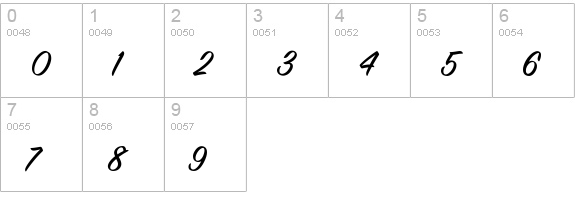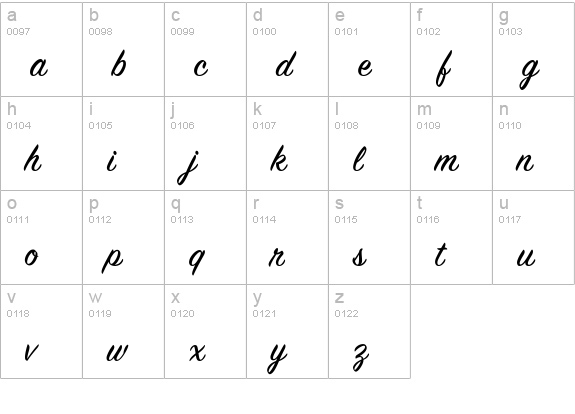
SignPainter HouseScript font is a charming and versatile typeface that exudes a timeless elegance and classic appeal. Perfect for adding a touch of sophistication to your designs, this font features delicate yet bold script letterforms that effortlessly convey a sense of grace and style. Whether you're working on invitations, branding materials, or signage, SignPainter HouseScript font will elevate your projects to new heights.